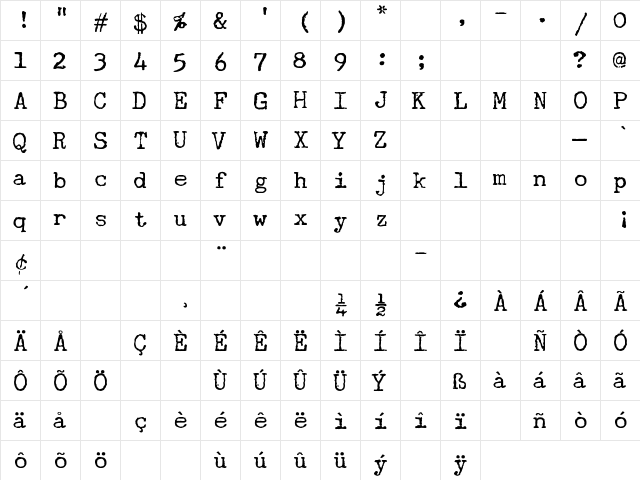
Underwood Champion Regular Font Preview
Underwood Champion Regular
Design Context for Underwood Champion Typeface
Underwood Champion echoes the hand-painted signage and woodblock typography of the American frontier, with a warm, rugged personality.
Perfect for barbecue restaurants, country music branding, vintage poster design, and rustic packaging.
Font Pairing: Combine Underwood Champion with a simple slab or neutral sans — period-accurate companions reinforce the vintage feel without competing for attention.
Pro Tip: Pair Underwood Champion with aged textures or distressed backgrounds to amplify its vintage personality.